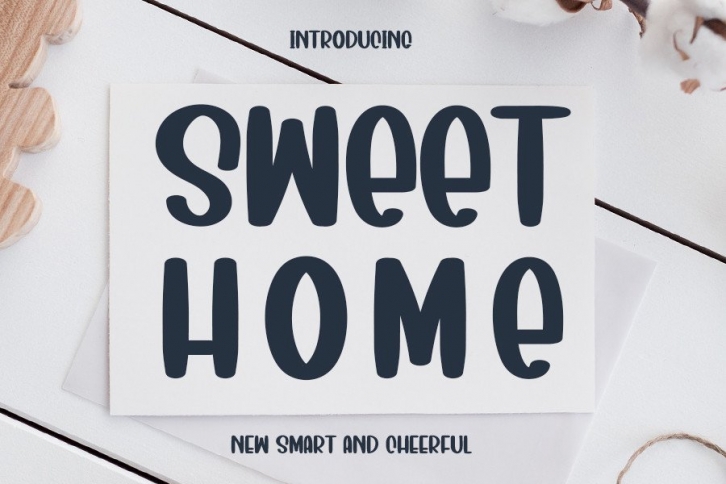
Sweet Home a is a bold display font crafted to take your projects to the highest levels! Use it for product packaging, name tags, branding, apparel, books, and so much more!